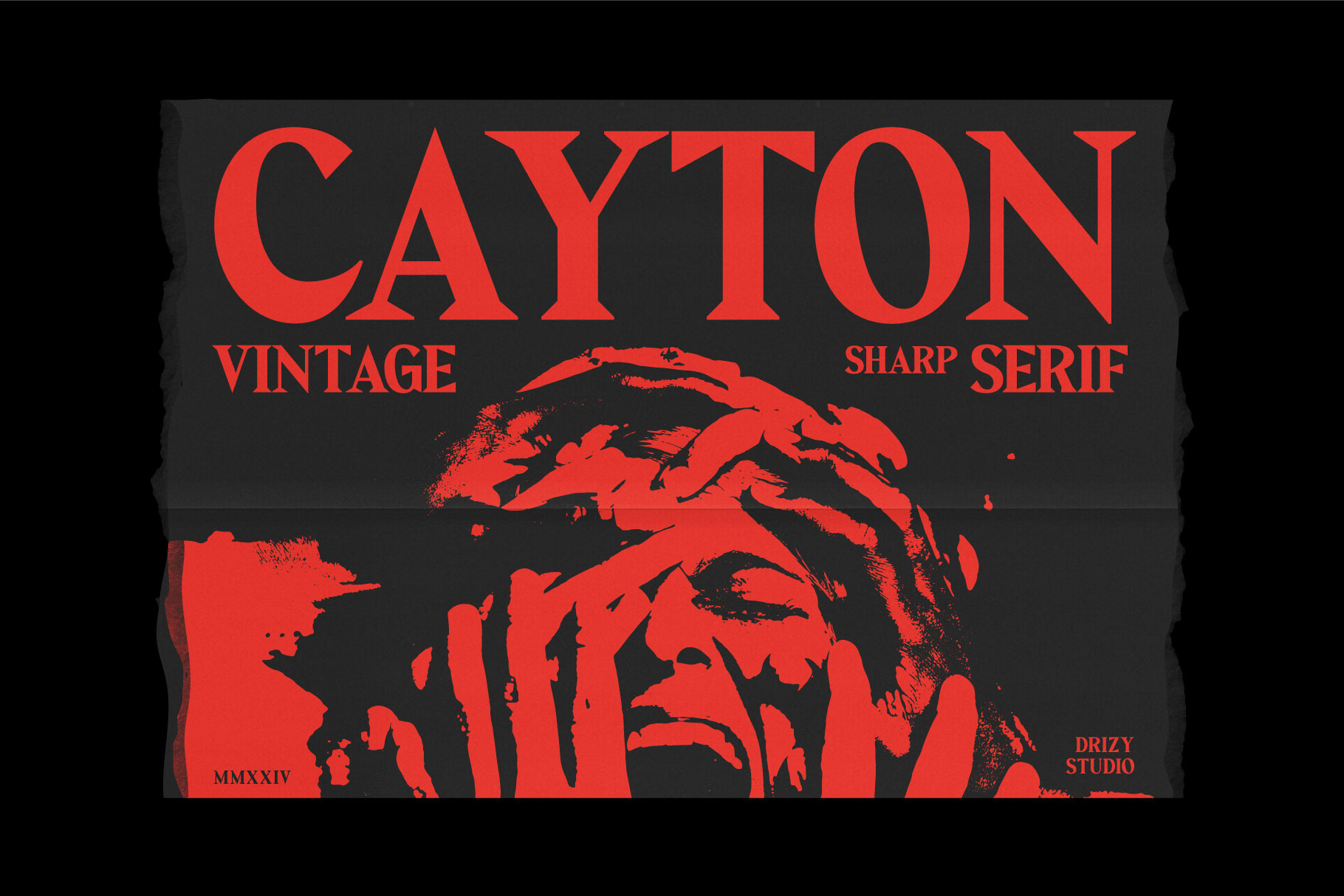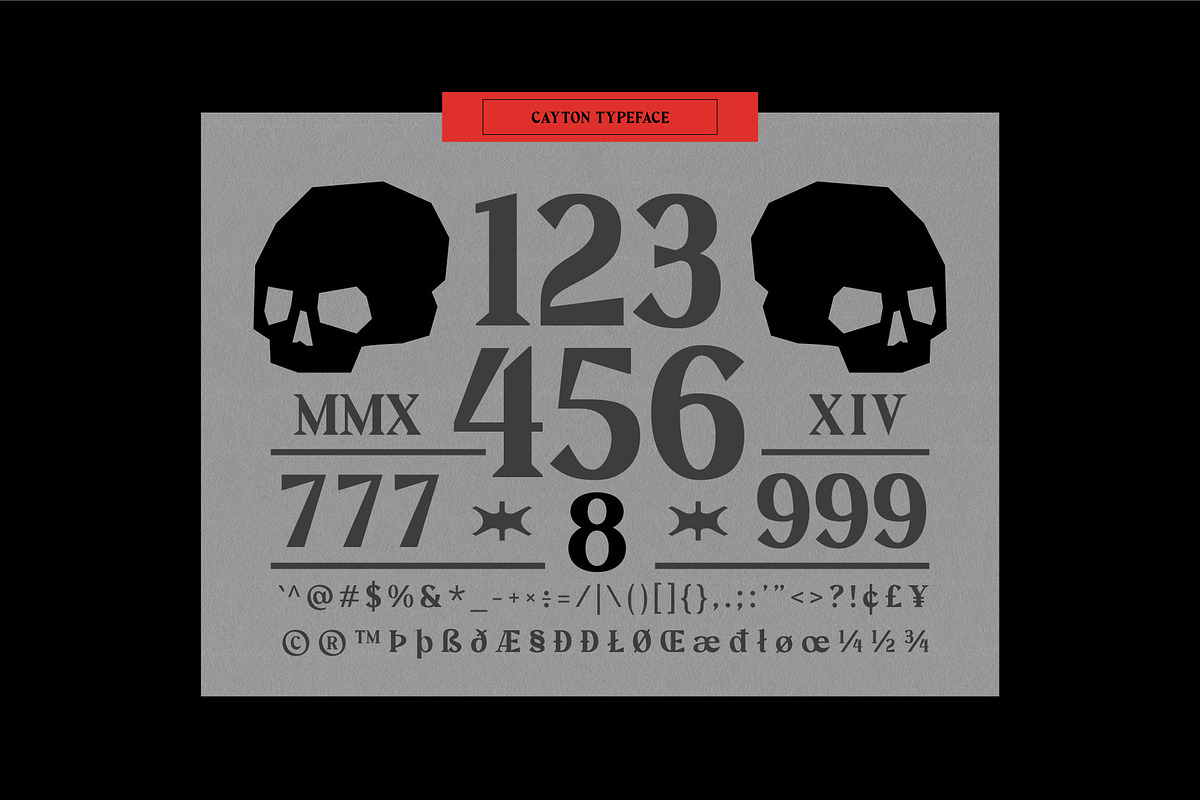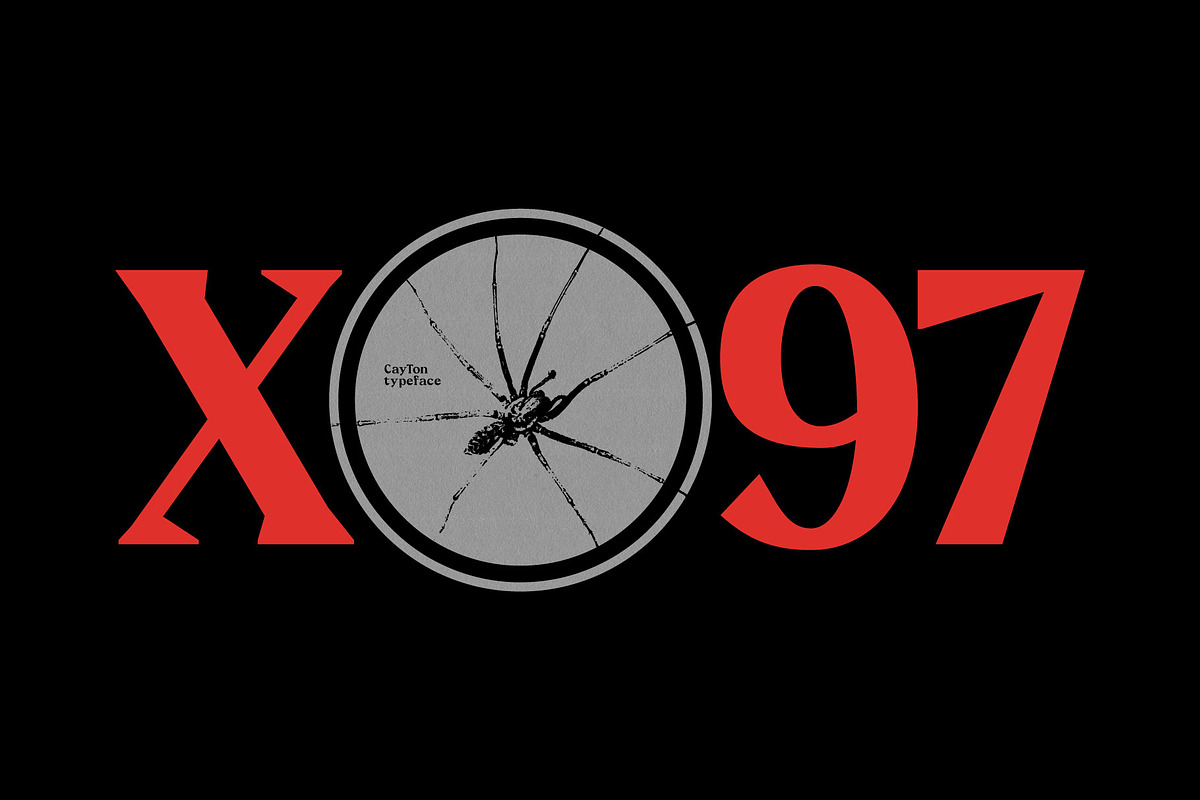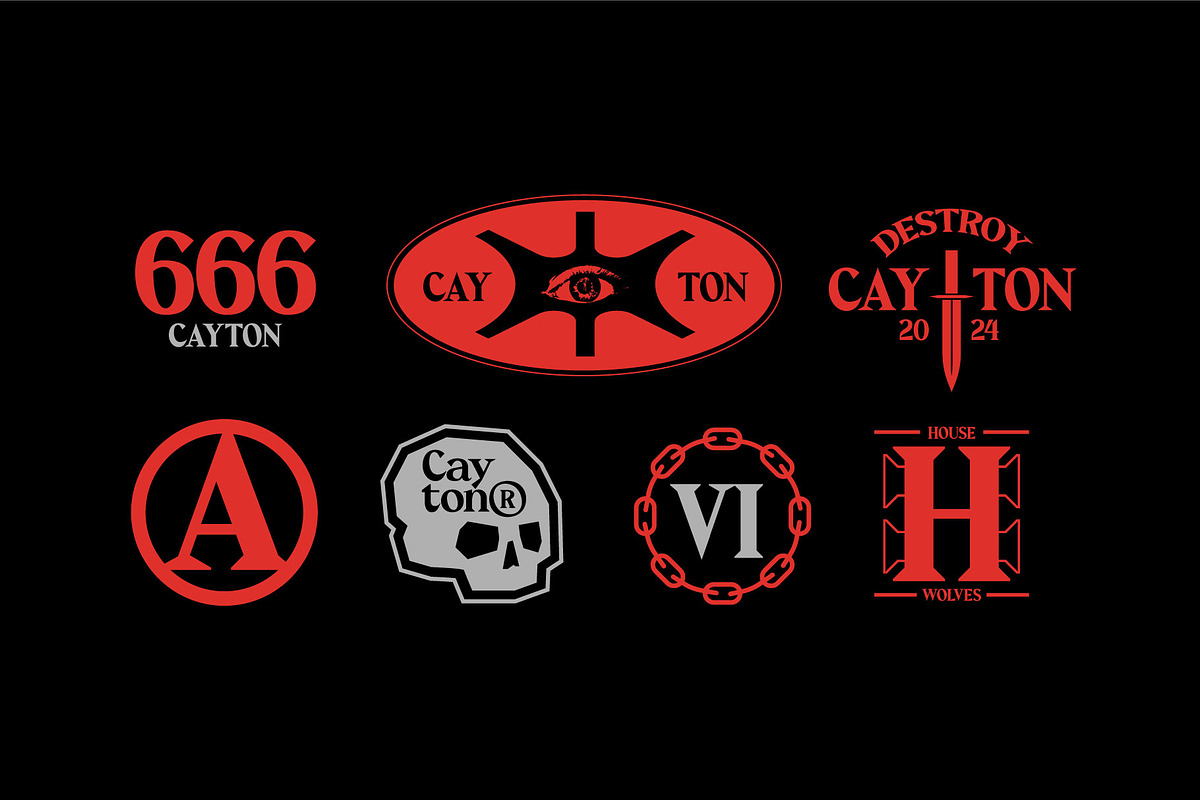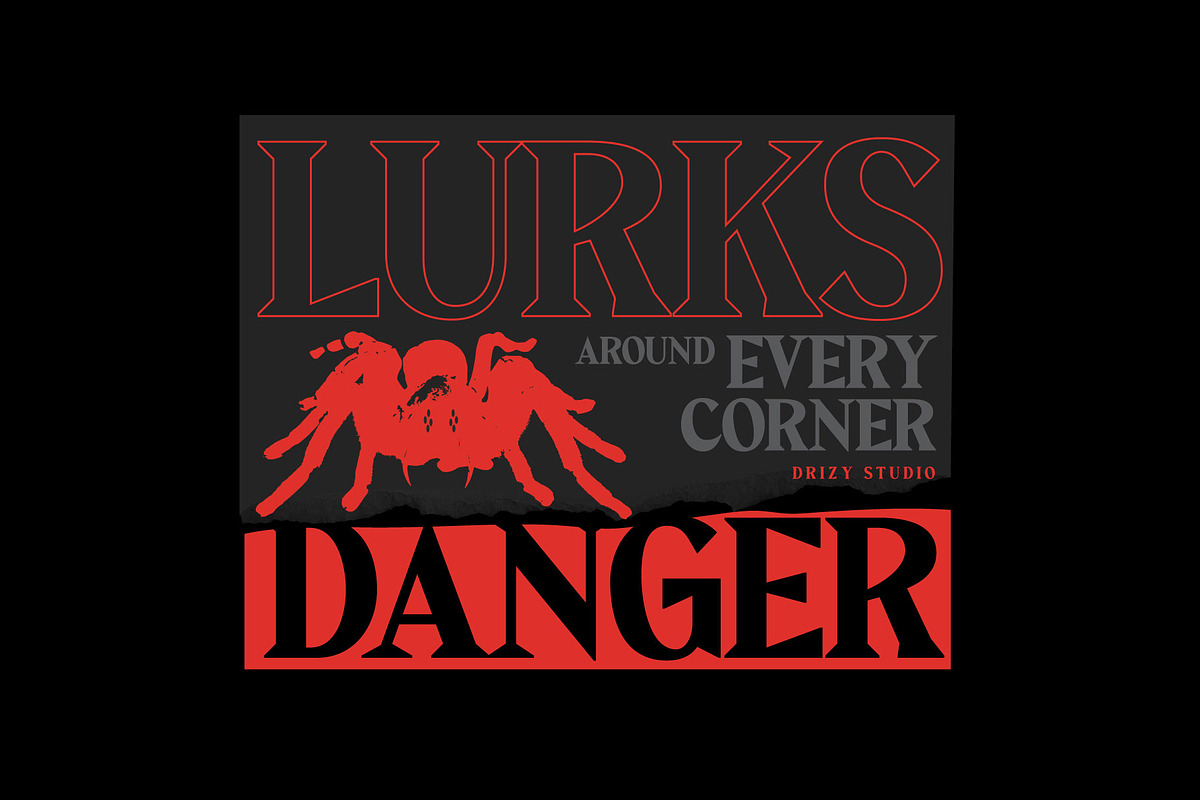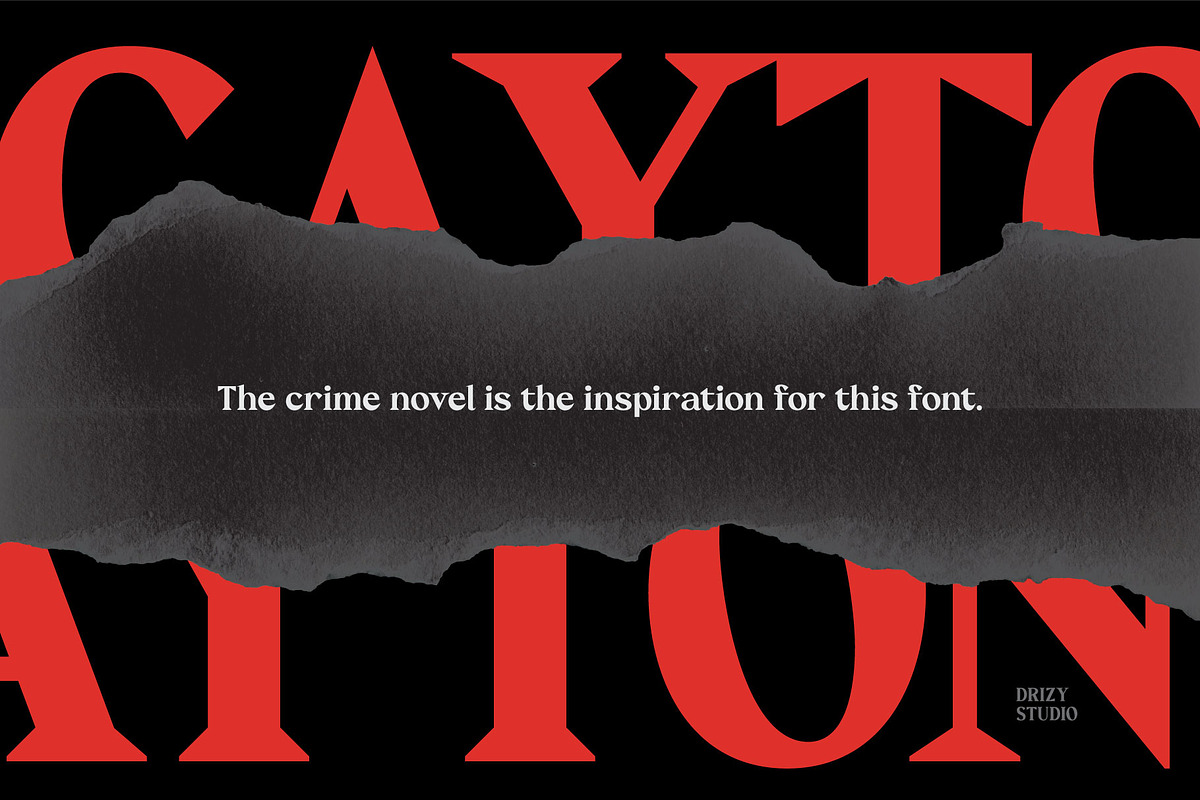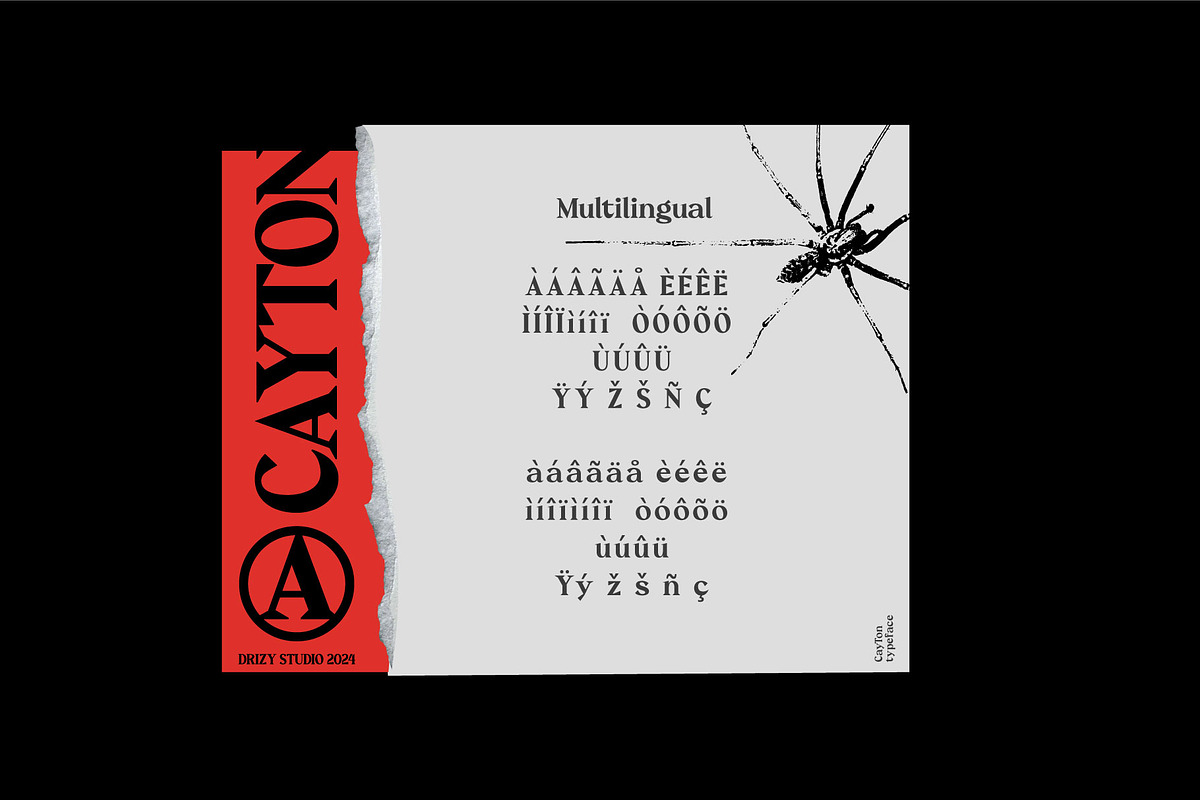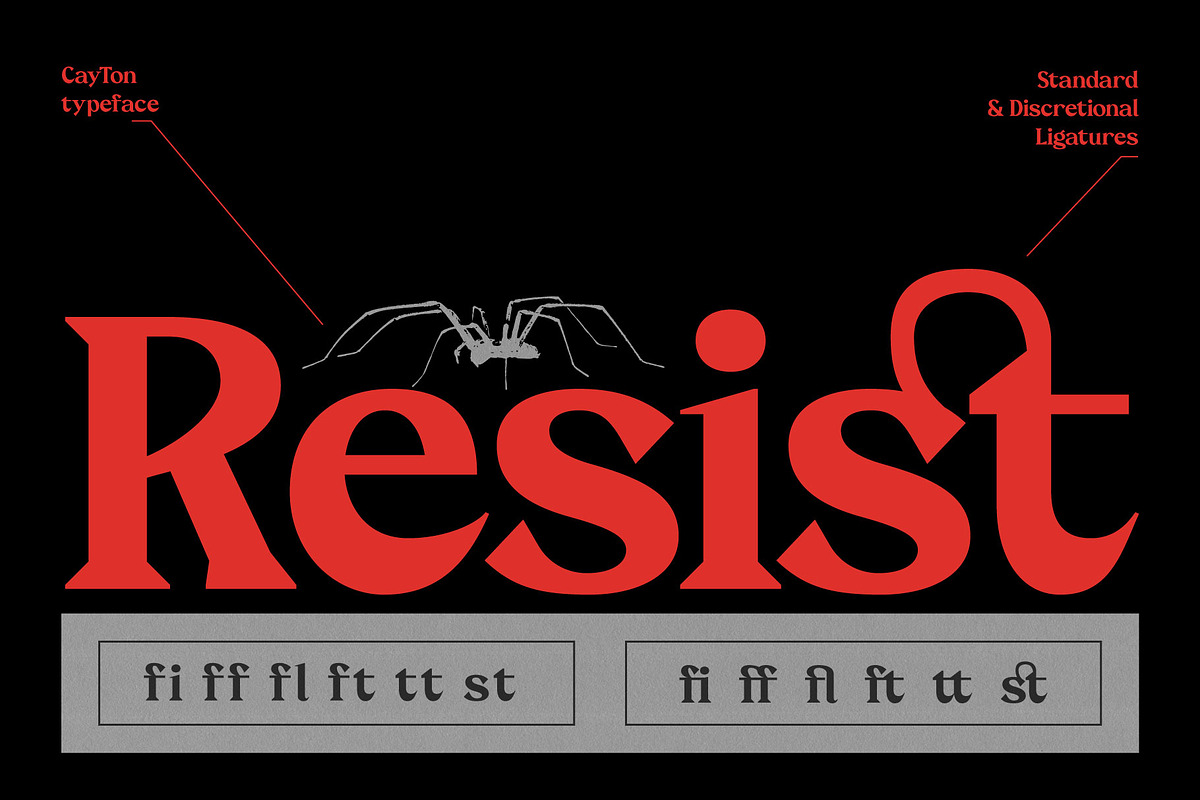
Cayton - Vintage Sharp Serif Font
Introducing Cayton, a font that encapsulates the mystique and intrigue of a bygone era with its Noir Crime Serif style. Cayton exudes an aura of suspense and sophistication, making it the ideal typeface for projects that demand a touch of noir elegance. The sharp serifs and distinctive letterforms pay homage to classic crime novels and cinematic masterpieces, transporting your designs into the realm of vintage detective stories and thrilling mysteries.
Cayton features:
Uppercase & Lowercase Punctuation & Numbers Multilinguals Ligatures
Elevate and explore the design possibilities with this Crime Serif Font!